Choosing from cool gothic fonts starts with the job your typography must do. Consider the words, their final size, and the mood of the project. The options below are organized to help you compare useful directions before testing candidates in your own layout.
How to evaluate the options
Set the real headline, name, or label in each candidate. Check legibility at the final size, compare the capitals and repeated letters, and leave enough room for decorative details. Use a quieter companion font for long descriptions and other supporting text.
Font picks
Taylor Gothic Font for display text
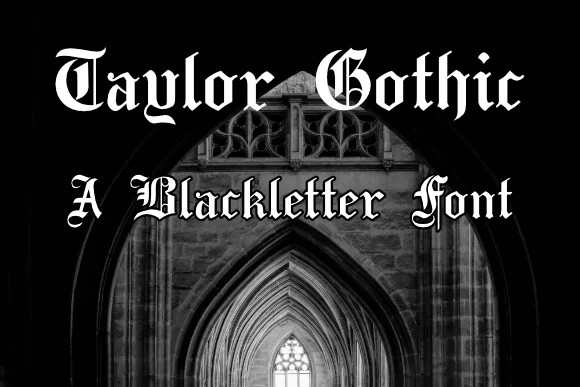
Taylor Gothic Font is worth testing for display text, headlines, and posters. Look for angular blackletter forms and narrow proportions when comparing it with other options. Give the letter shapes generous space in short headlines.
Plakat Fraktur Font for display text
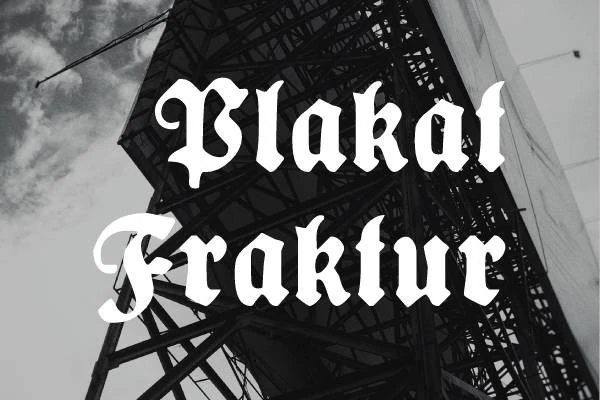
For display text, headlines, and signage, consider Plakat Fraktur Font. Its design draws on angular blackletter forms and narrow proportions. Give the letter shapes generous space in short headlines.
Humbold Fraktur Font for posters
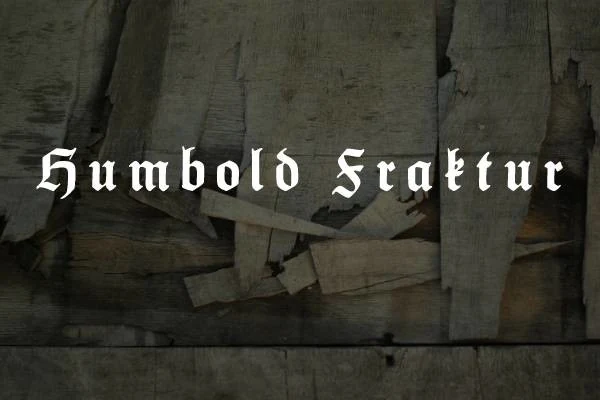
Humbold Fraktur Font can anchor posters, headlines, and vintage designs. The main visual cues are strong contrast between thick and thin strokes and angular blackletter forms. Check the thinnest strokes at the final display size.
Black Raven Font for posters
Black Raven Font is worth testing for posters, display text, and signage. Look for angular blackletter forms and a gothic mood when comparing it with other options. Give the letter shapes generous space in short headlines.
Highborne Font for headlines
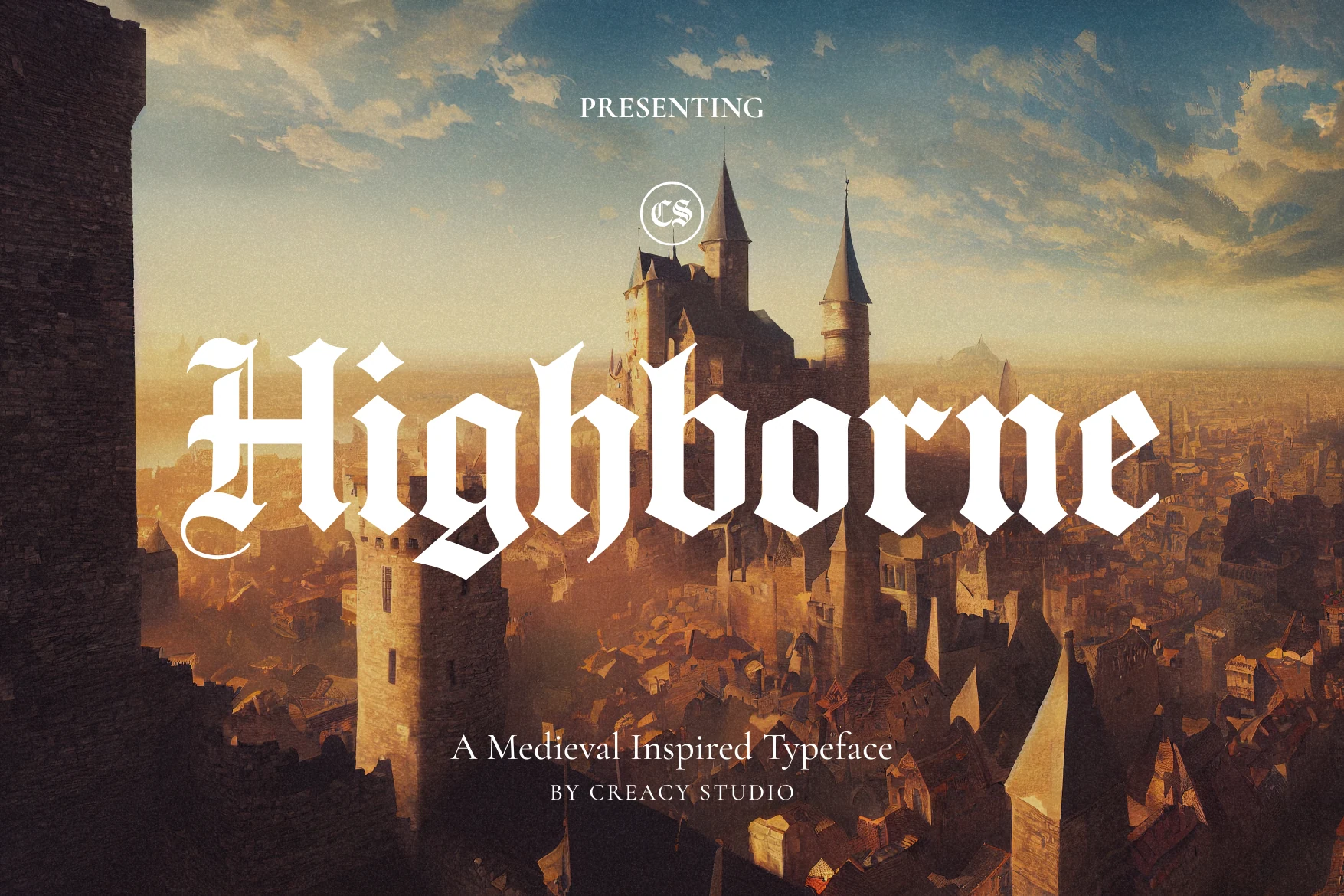
For headlines, posters, and signage, consider Highborne Font. Its design draws on angular blackletter forms and narrow proportions. Give the letter shapes generous space in short headlines.
Ebon Crest Font for posters
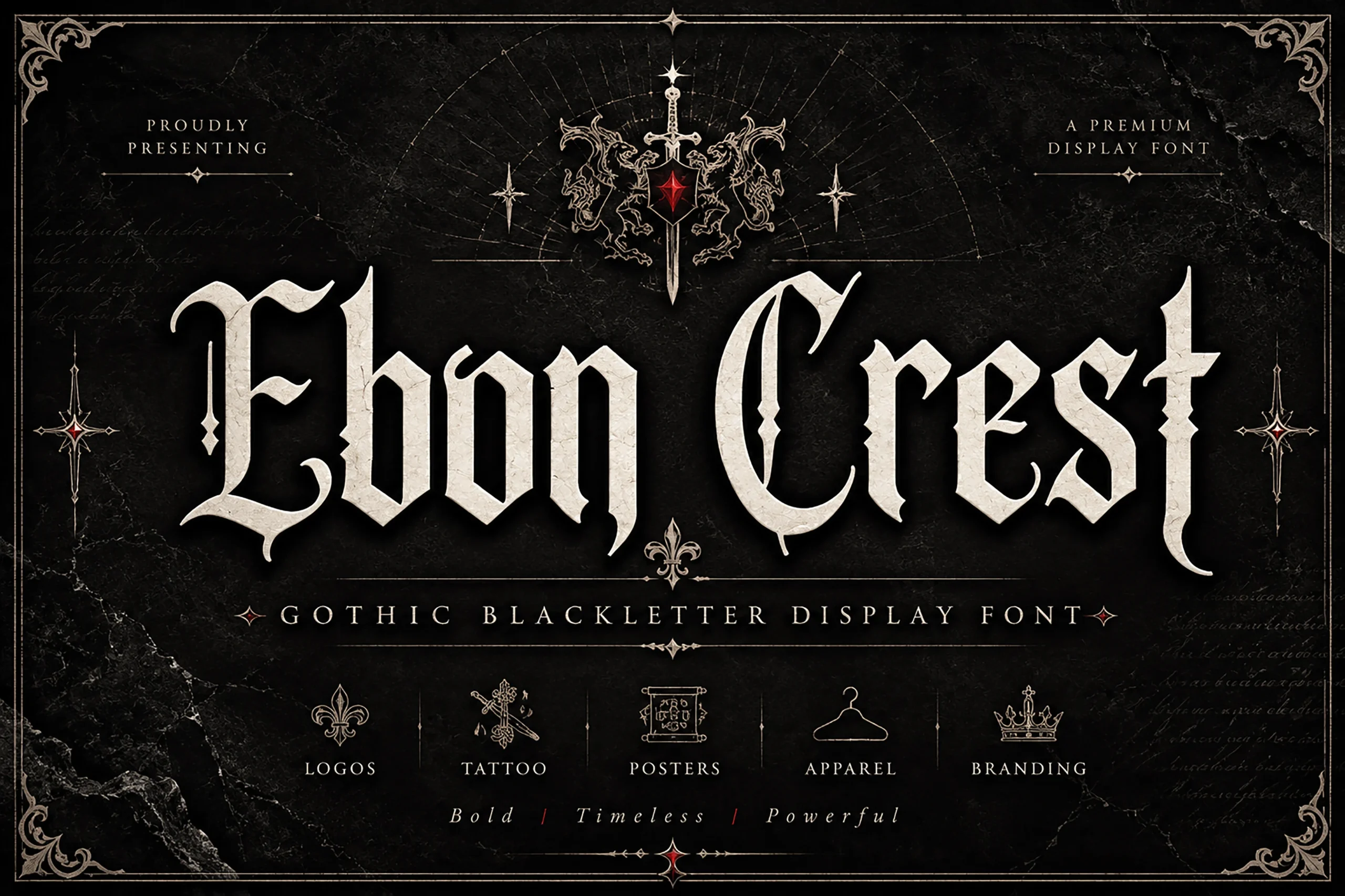
Ebon Crest Font can anchor posters, logos, and T-shirts. The main visual cues are strong contrast between thick and thin strokes and angular blackletter forms. Check the thinnest strokes at the final display size.
Crownspires Font for headlines
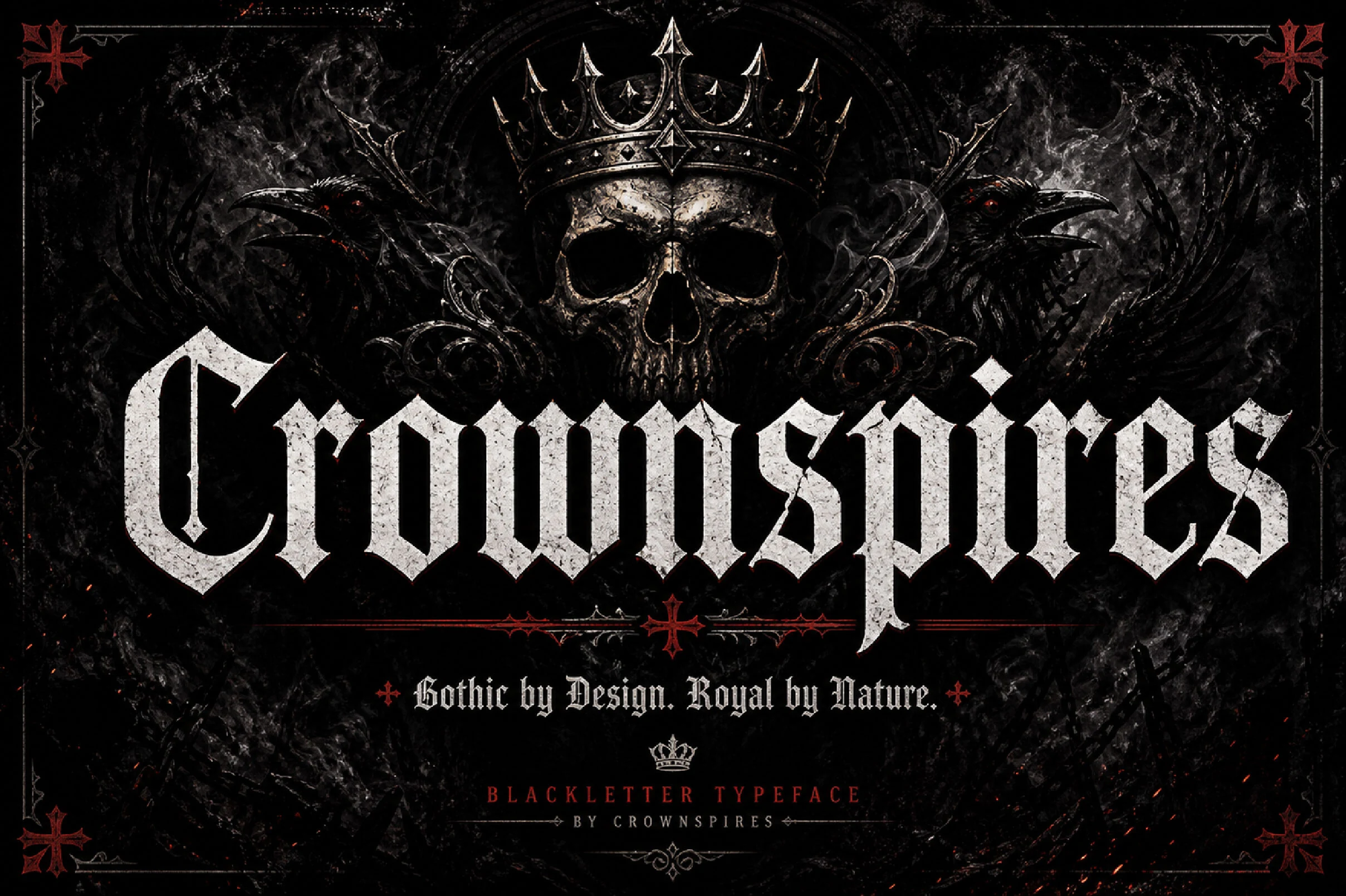
Crownspires Font is worth testing for headlines, display text, and signage. Look for angular blackletter forms and narrow proportions when comparing it with other options. Give the letter shapes generous space in short headlines.
Final checks before using a font